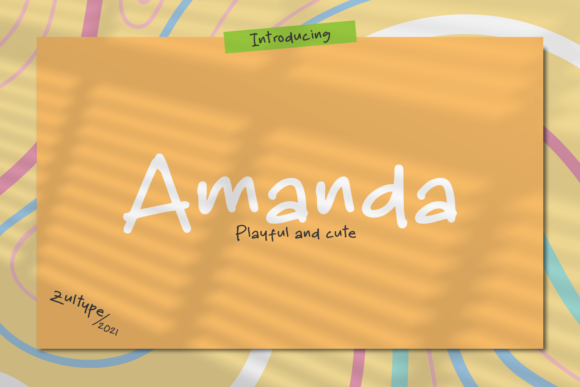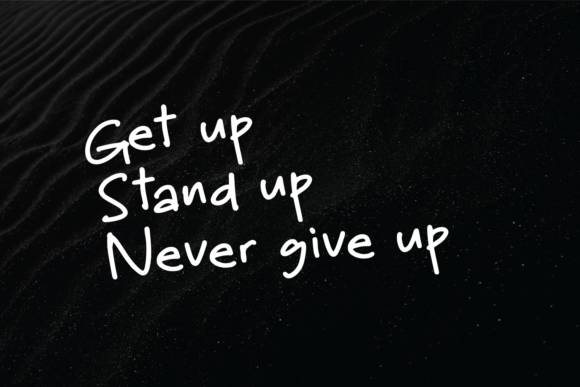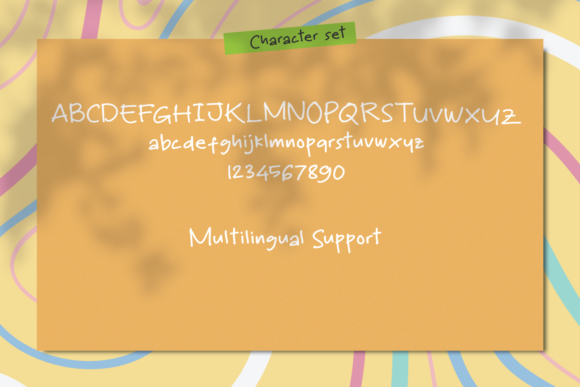
About Amanda Font
Introducing “Amanda” – a simple and neat handwritten font that adds a touch of elegance to your font library. With its clean and minimalist style, this font has the potential to elevate any creative project, regardless of the topic or theme.
Amanda’s simplicity and versatility make it a valuable asset in your font collection. Its neat and well-crafted letterforms exude a sense of sophistication and clarity, making it suitable for a wide range of design applications. Whether you’re working on branding materials, invitations, packaging, or any other project, Amanda will bring a refined and polished look.
The understated charm of Amanda allows it to blend seamlessly into various design contexts. Its simplicity enhances readability, while its clean lines and balanced proportions create a harmonious visual experience. By incorporating Amanda into your designs, you can achieve a sense of elegance and professionalism.
Embrace the simplicity and neatness of Amanda, and witness how it elevates your creative projects. Let it be the font that adds a touch of refinement and clarity to your designs, enhancing their overall impact and visual appeal. With Amanda, your creations will shine with a timeless beauty.